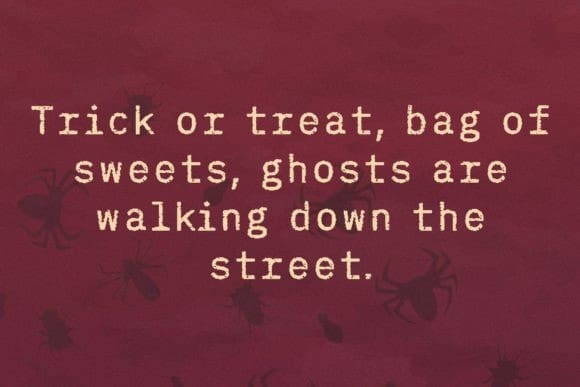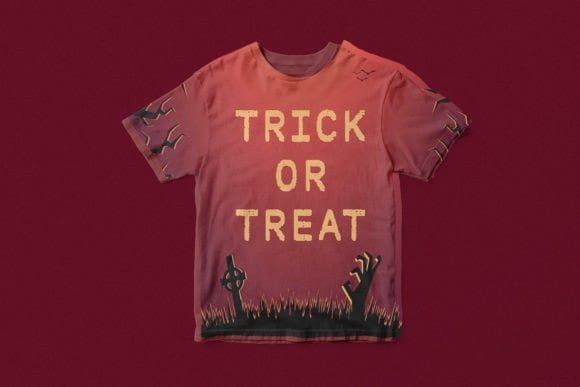
Evil Typewriter Font
Evil Typewriter Font is a terrifying, horror, and scary grunge font made to help you with your forthcoming horror/Halloween-related projects! Add it confidently to your creative ideas and you will love the results!